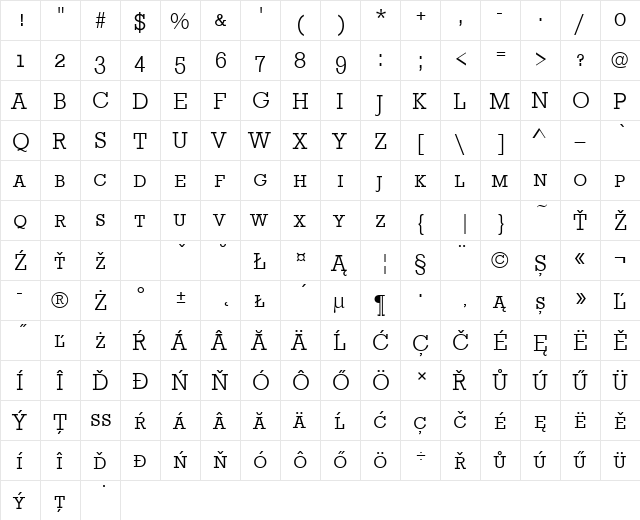
RoctusSCTEELig Regular Font Preview
RoctusSCTEELig Regular
Design Context for RoctusSCTEELig Typeface
RoctusSCTEELig offers clean, dependable letterforms without strong stylistic allegiance, making it a practical choice for designers who need flexibility.